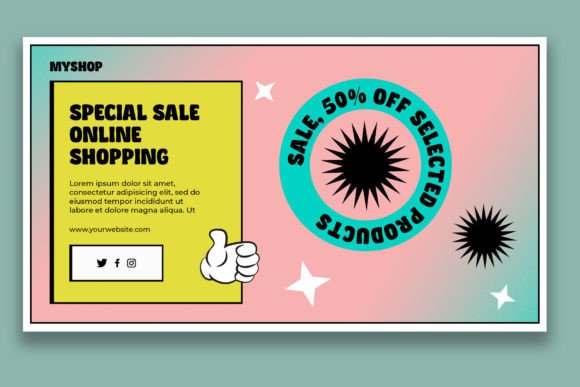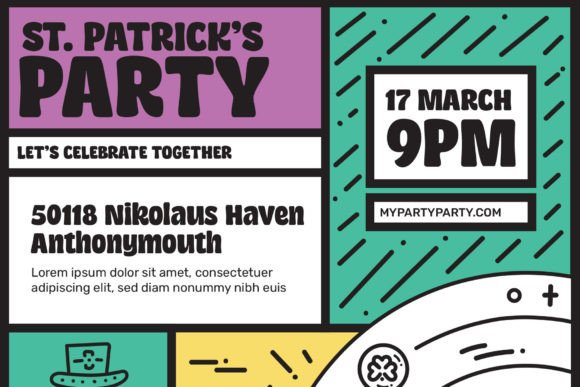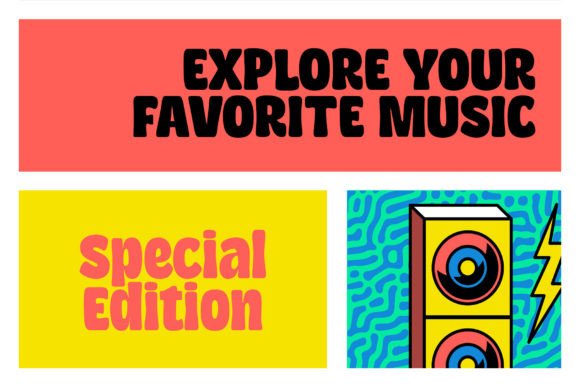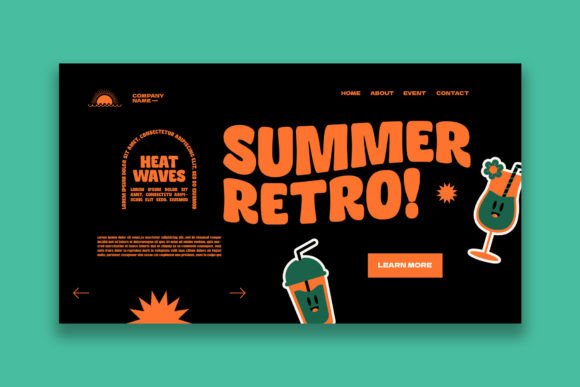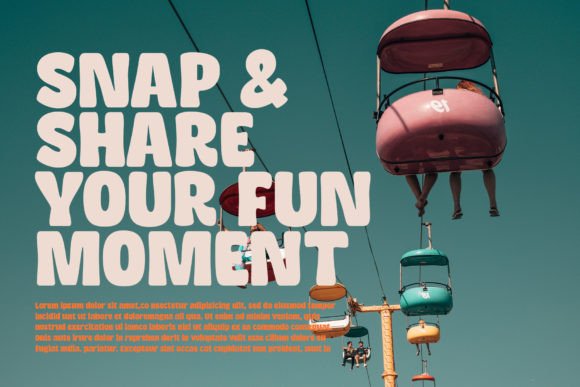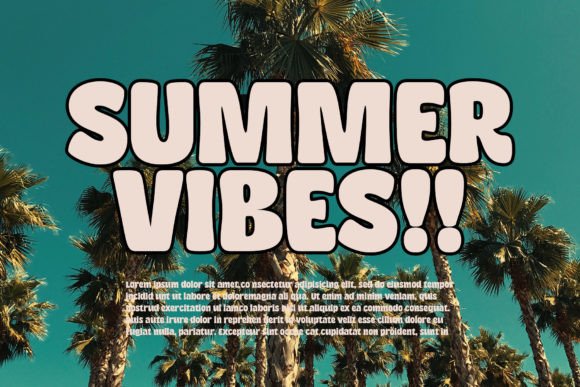
Introduction to Smoothsoul Font
Remember that moment when you finally found the perfect font for your creative project? The one that elevates your design from ordinary to extraordinary? For designers, that ‘aha’ moment is priceless. And for those who’ve been searching, we’ve got exciting news – the Smoothsoul Font is here to revolutionize your designs.
As a display sans-serif font, Smoothsoul Font boasts a unique blend of smooth shapes and retro style, making it a game-changer for designers. With its clean and modern-retro appearance, this font is perfect for creating visually stunning designs that demand attention. Whether you’re working on a personal project or a commercial venture, the Smoothsoul Font is an invaluable design resource that will take your creations to the next level.
What sets Smoothsoul Font apart is its versatility – it’s available for free download, making it an accessible high-quality design resource for designers of all levels. With its transparent background and smooth curves, this font is sure to add a touch of sophistication to any design project.
Key Features of Smoothsoul Font
- Unique, hand-drawn design style with a touch of elegance, perfect for creative projects requiring a high-quality font.
- Smoothsoul Font offers a transparent background, allowing for easy layering and customization in your design work.
- Includes a comprehensive character set, covering a wide range of languages, to cater to diverse design needs.
Honest Review: Smoothsoul Font
As a designer, I’m always on the lookout for high-quality fonts that can elevate my creative projects. The Smoothsoul Font is a great addition to any design resource library, and I was excited to try it out.
One of the things that really stood out to me was the smooth, elegant design of the font. It’s perfect for creating a sophisticated and professional look in any project. The transparent background feature also makes it easy to layer and blend with other design elements.
- Smooth and elegant feel that’s great for professional designs
- Transparent background feature for easy layering and blending
- Only a few weights are available, which may limit its versatility
- The font may not be suitable for projects that require a bold, dramatic look
Overall, I’m impressed with the Smoothsoul Font and would recommend it to designers looking for a high-quality, elegant font for their creative projects. With a little creativity, it’s easy to get the most out of this design resource.
The Smoothsoul Font is perfect for a variety of creative projects, including logos, business cards, and social media graphics. You can also use it to create a professional-looking presentation or document. With its high-quality design and transparent background option, the Smoothsoul Font is a valuable design resource for any project.